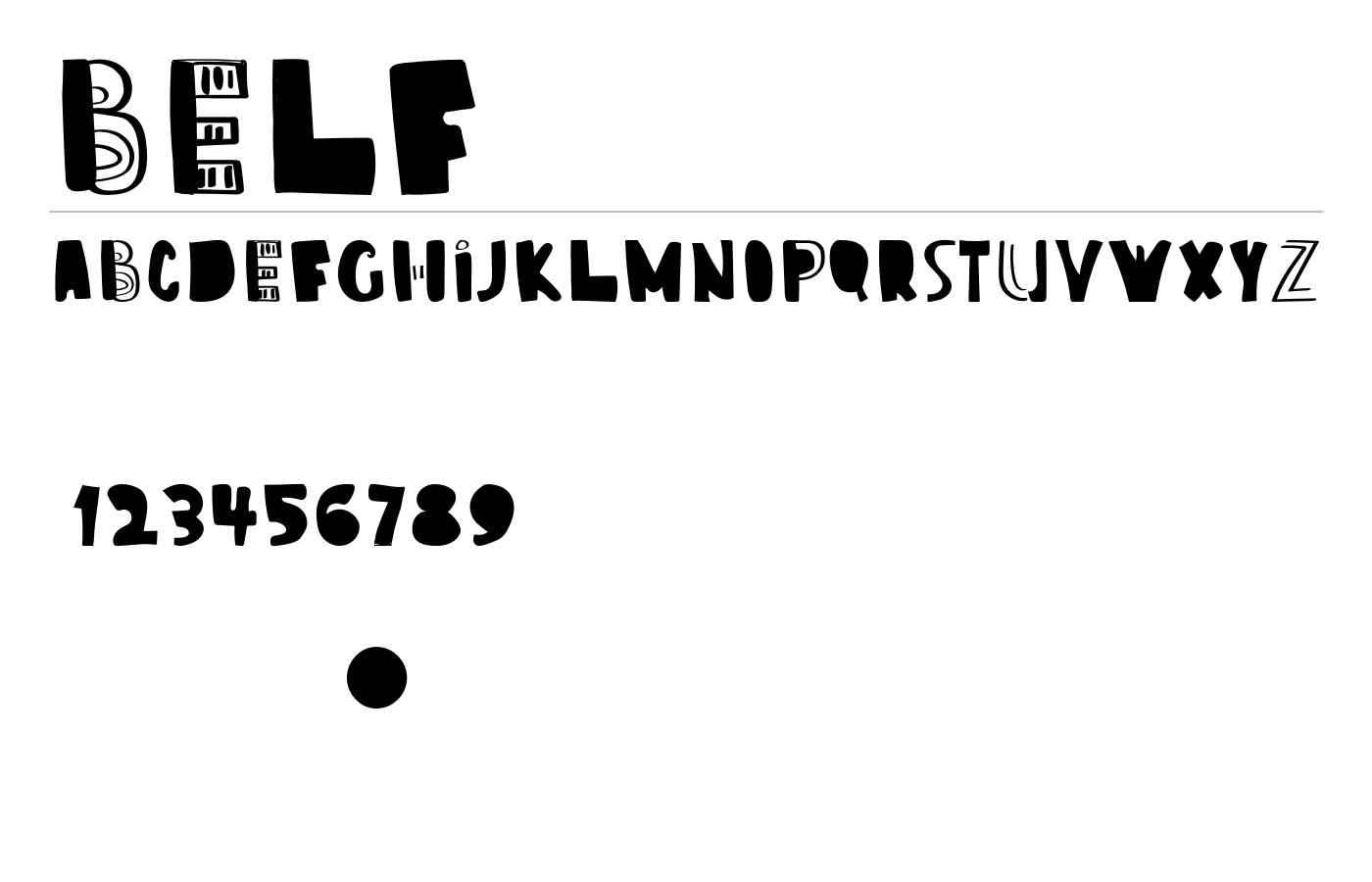
BELF is a playful, bold display font with a quirky and hand-drawn feel, featuring irregular shapes and a mix of solid and outlined characters. Its chunky, uneven letterforms give it a lively and artistic personality that works well for creative projects, children's materials, and fun branding where a casual, eye-catching style is desired. This font shines in headlines, posters, and packaging that need a unique, informal vibe.
BELF Font